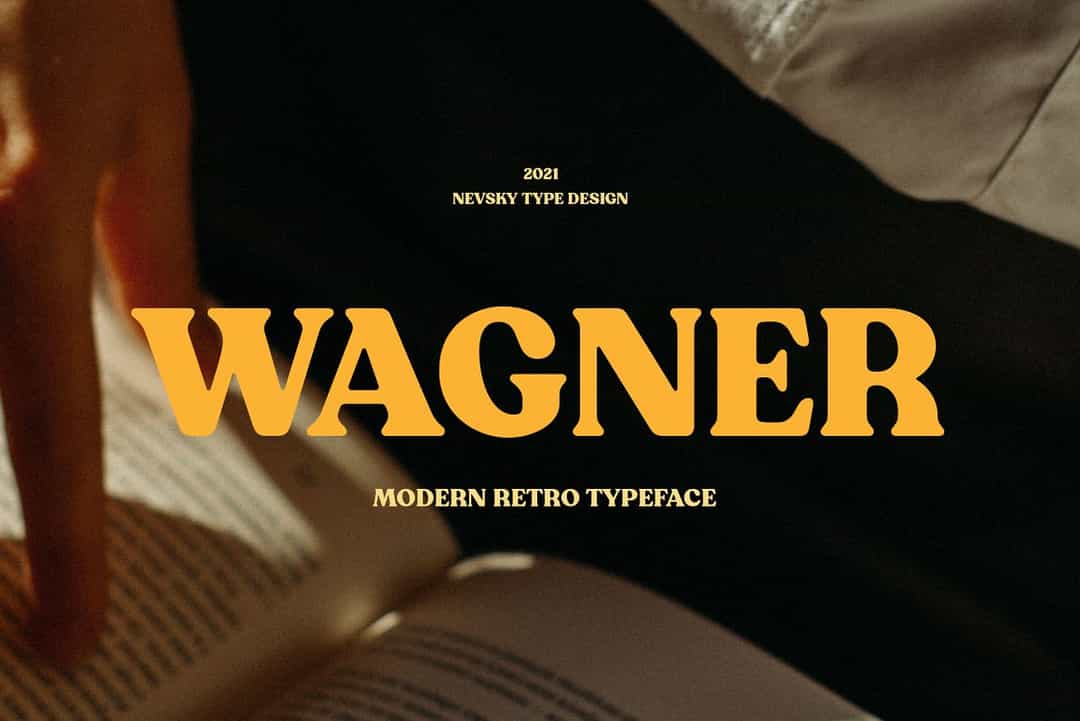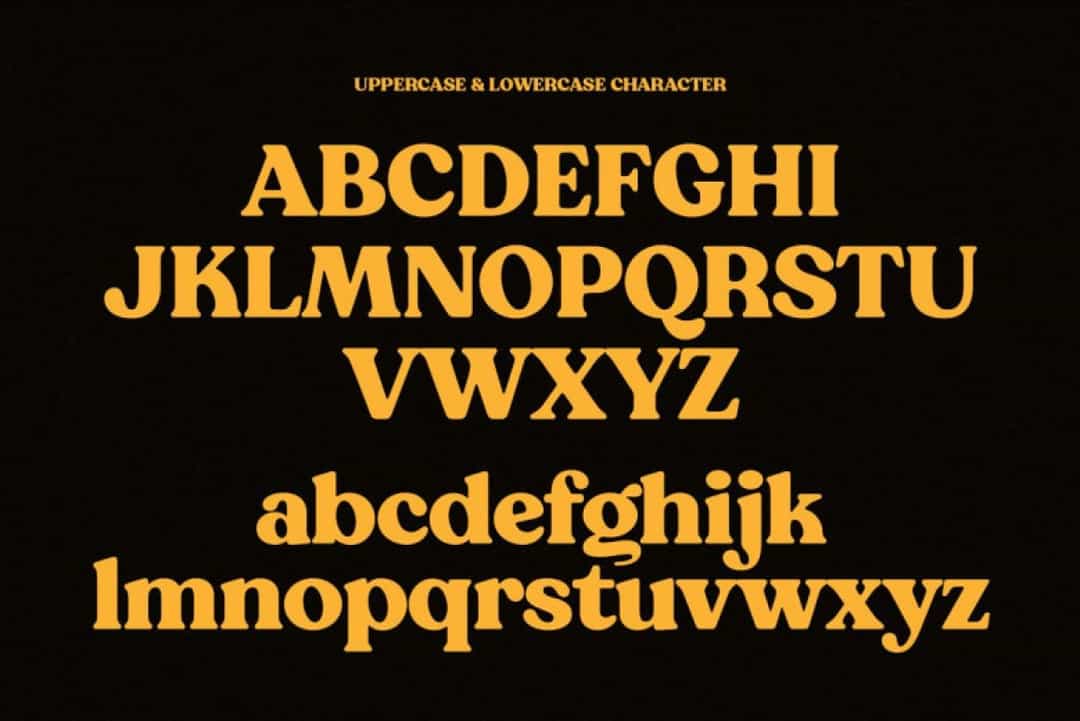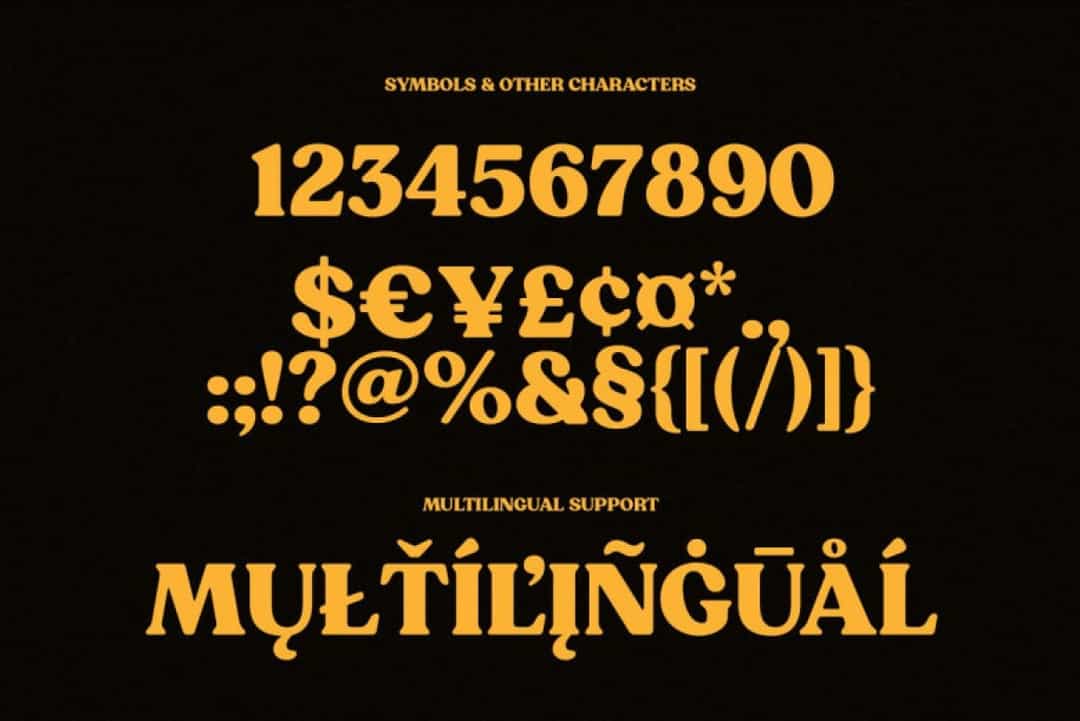
NT Wagner Font is an elegant soft serif font ideal for many projects such as invitations, postcards, posters book ads websites blog headers logo branding magazines fashion photography etc.